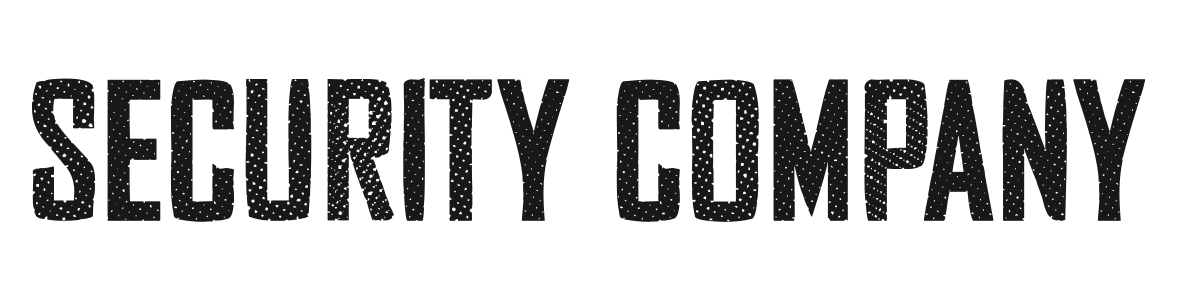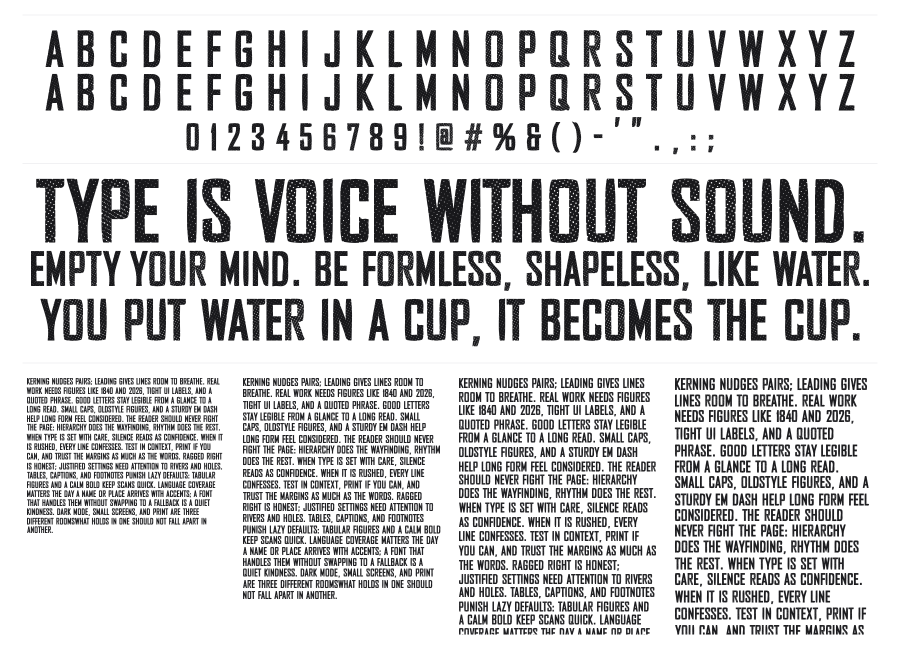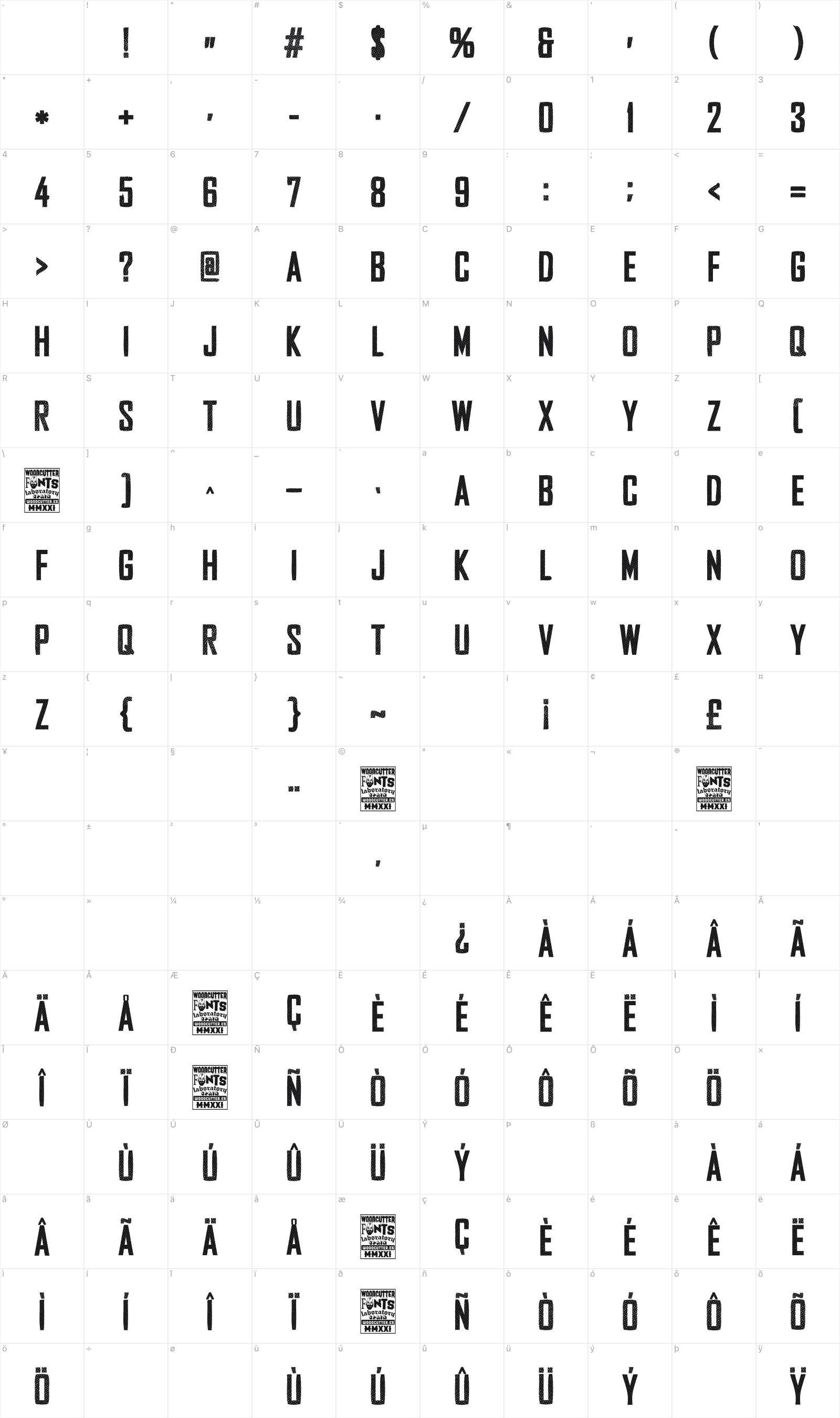
Security Company
Security Company is a heavy condensed display font with a distinctive stippled dot texture filling every stroke, giving it the look of aged screen printing or worn rubber stamps. The tall, blocky construction reads instantly as institutional authority — badges, patches, warning signs. That gritty texture is what separates it from a plain condensed black.